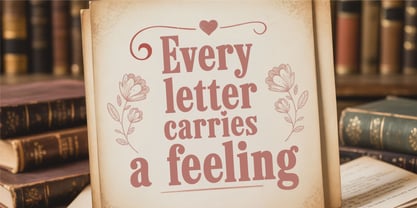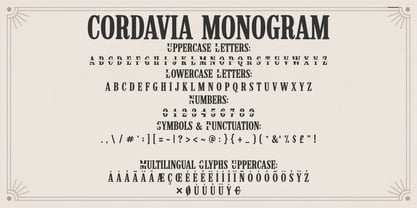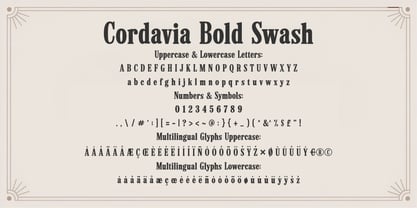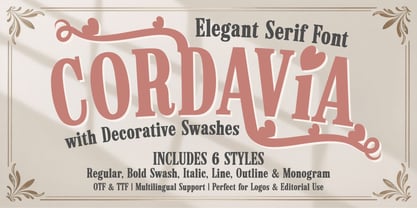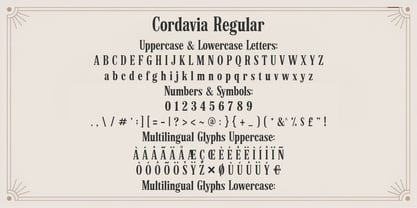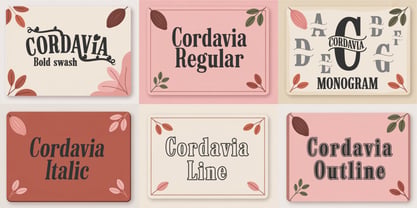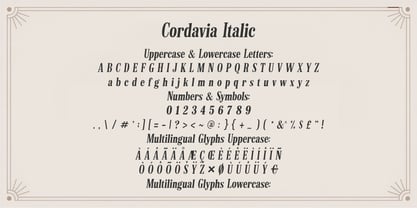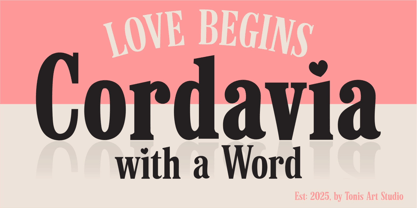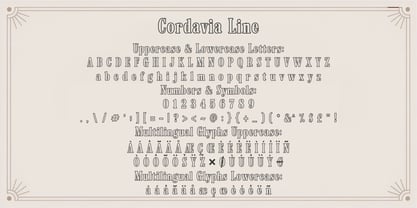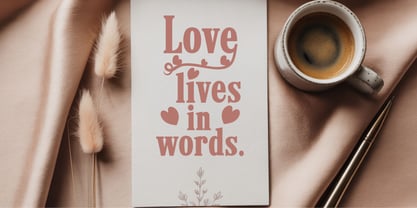
Cordavia
Cordavia Typeface Family is a bold and expressive serif font family designed to make a statement. With high contrast strokes, vintage-inspired curves, and modern proportions, Cordavia blends timeless elegance with a contemporary edge—ideal for designers looking to elevate their branding, product packaging, advertising, social media graphics, or editorial layouts.
The Cordavia family includes 6 carefully crafted styles:
• Regular – clean and classic serif style
• Line – a stylish inline version with artistic flair
• Monogram – designed for initials, badges, and elegant branding
• Italic – flowing and slanted for graceful contrast
• Outline – for a creative, outlined letter effect
• Bold Swash – features decorative swashes for added drama and emphasis
Each style works beautifully on its own or can be paired across styles for stunning typographic combinations.
• Uppercase & lowercase characters
• Numbers & punctuation
• Accented characters for multilingual support
Cordavia is perfect for:
✔ Logos & branding
✔ Invitations & packaging
✔ Posters, apparel, and signage
✔ Editorial titles & social media